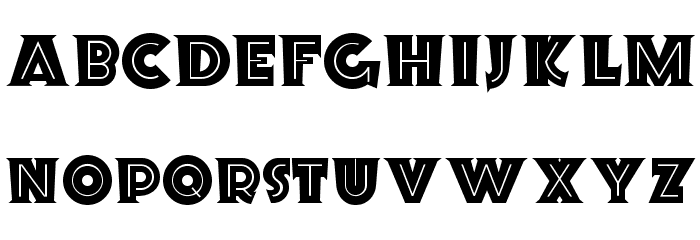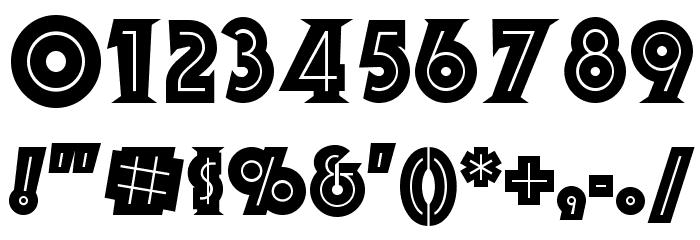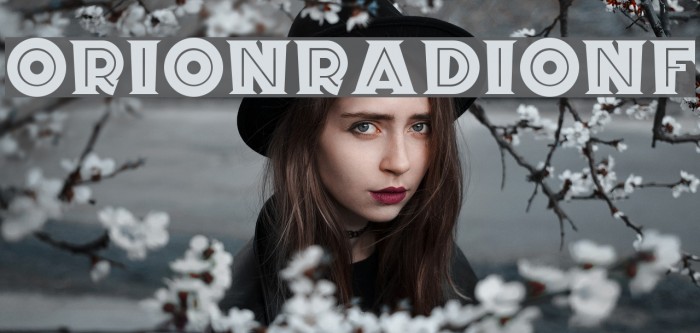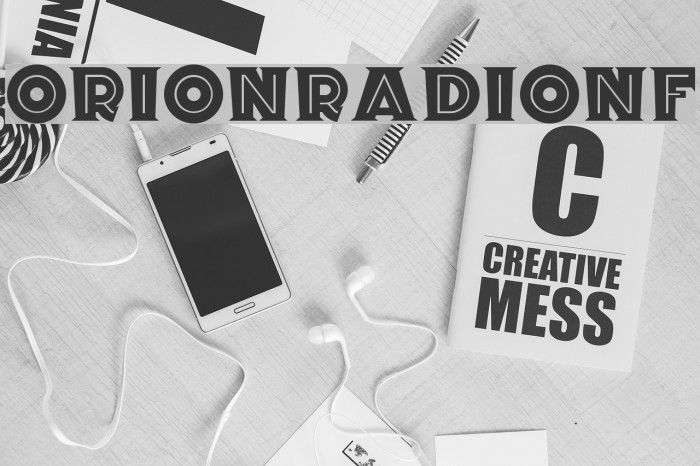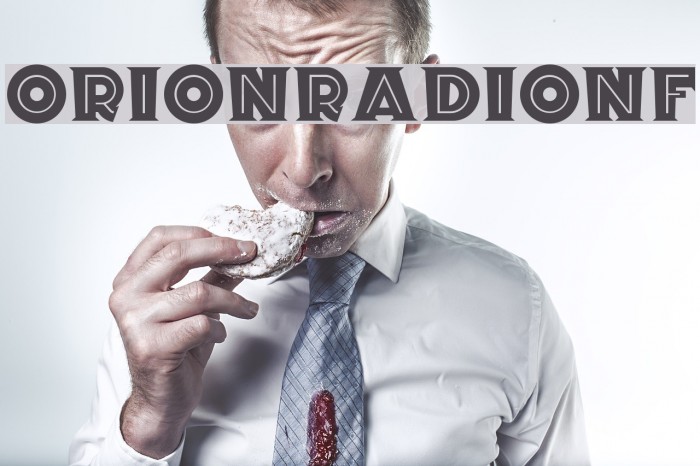
OrionRadioNF Font
This font features a bold and dynamic design with strong geometric shapes and a distinct retro flair. The characters are characterized by thick strokes and sharp angles, giving them a sense of movement and energy. The uppercase letters are particularly striking, with unique embellishments that add to the font's decorative appeal. The numerals and special characters maintain the same bold style, ensuring consistency across all elements. This font is ideal for projects that require a vintage or retro aesthetic, making it suitable for posters, branding, and headlines.
A bold, retro-inspired font with geometric shapes and decorative elements.
- Proposed Projects: Ideal for vintage-themed posters, branding, headlines, and retro-style designs.
- Overall Style: Vintage